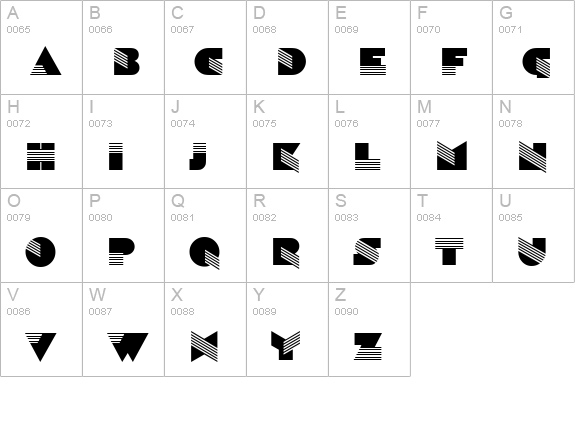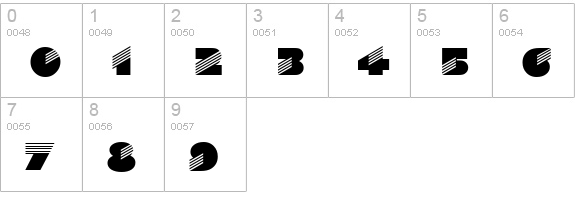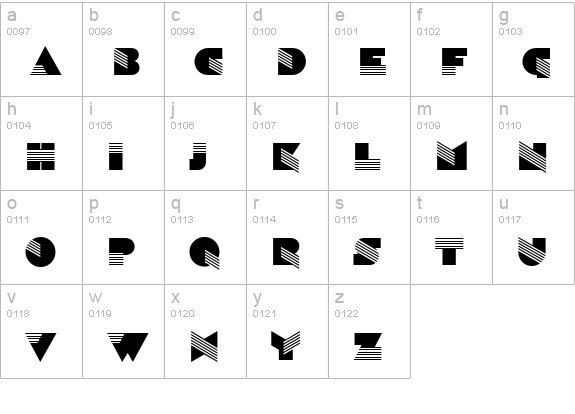
Sinaloa ICG Font Details
Sinaloa ICG font is a captivating and versatile typeface that effortlessly combines modernity with a touch of retro charm. Designed with meticulous attention to detail, this font exudes elegance and sophistication, making it perfect for a wide range of design projects. With its clean lines and balanced proportions, Sinaloa ICG font adds a sense of professionalism and polish to any text. Whether you're designing a logo, creating a website, or crafting a marketing campaign, this font will elevate your work to new heights. One of the most remarkable aspects of Sinaloa ICG font is that it is freely available to download at FontsMarket.com. This means that you can easily access and utilize this stunning font without any cost. Its availability makes it an ideal choice for budget-conscious designers, students, and anyone looking to add a touch of elegance to their projects without breaking the bank. Sinaloa ICG font offers a wide range of weights and styles, allowing you to experiment and find the perfect fit for your design needs. From light and airy to bold and impactful, this font has it all. Its versatility ensures that it can be used across various mediums, from print to digital, making it a valuable asset for any designer. Whether you're looking to add a touch of sophistication to your branding, create eye-catching headlines, or enhance the readability of your website content, Sinaloa ICG font is the perfect choice. Its timeless appeal and freely available nature make it a must-have in any designer's toolkit. Download it today at FontsMarket.com and elevate your design projects to new heights.